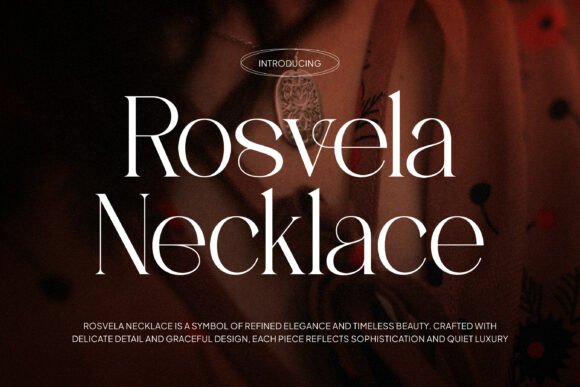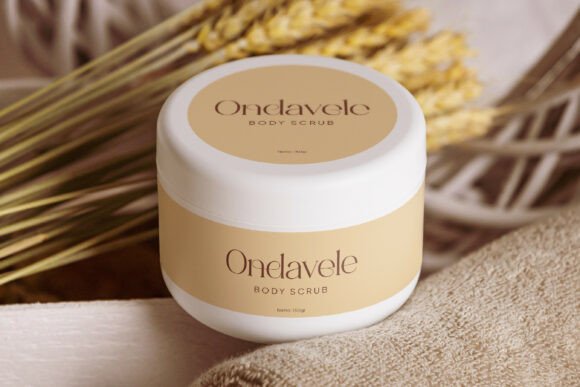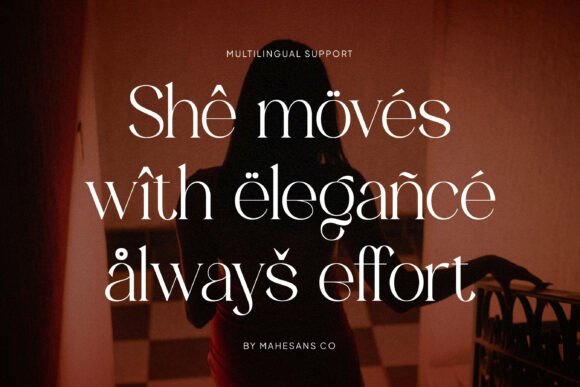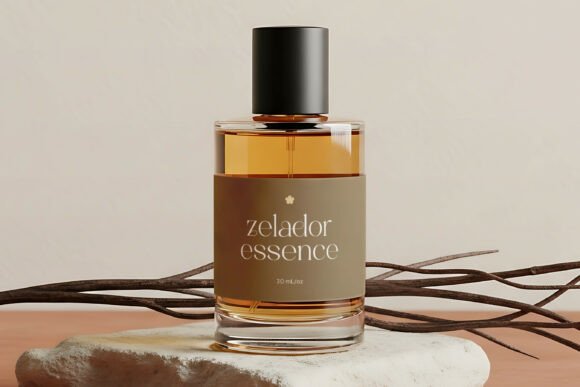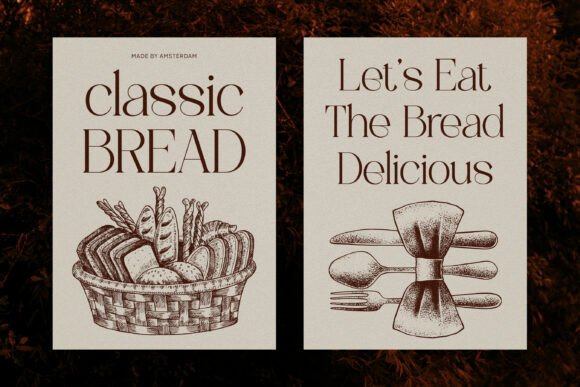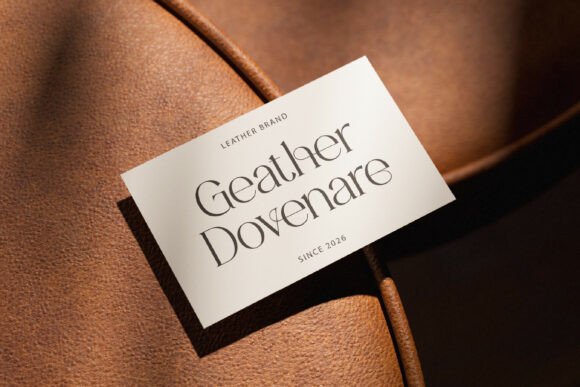
Introducing Belove Font: Elevate Your Designs with Modern Elegance
In the world of typography, a well-crafted font can make all the difference in elevating your designs from ordinary to extraordinary. Meet Belove Font, a modern elegant serif typeface designed to bring refinement and sophistication to your creative work. With its perfect balance of beauty and readability, Belove is the ideal choice for designers and crafters looking to add a touch of luxury to their projects.
The Art of Elegance: What Makes Belove Stand Out
Belove is more than just a font – it’s an experience. Carefully crafted to shine in luxury branding, editorial layouts, fashion campaigns, wedding designs, and premium packaging, this typeface is designed to bring a sense of charm, elegance, and modern sophistication to every composition. Whether you’re designing a brand identity, magazine headline, or elegant invitation, Belove is the perfect choice to make your work stand out.
Key Features of Belove Font
- Modern Elegant Serif Typeface: Belove boasts a sleek and sophisticated design, perfect for creating luxurious and high-end visuals.
- Balanced Beauty and Readability: The font’s careful craftsmanship ensures that it is not only visually stunning but also highly legible, making it perfect for a wide range of applications.
- Versatile: From branding and editorial design to fashion and packaging, Belove is the ultimate versatile font for any creative project.
Belove’s versatility makes it an excellent choice for a wide range of design projects. Here are just a few examples of where Belove can shine:
- Luxury Branding: Create a lasting impression with a sophisticated brand identity that exudes elegance and refinement.
- Editorial Layouts: Elevate your magazine or newspaper design with a font that commands attention and conveys sophistication.
- Fashion Campaigns: Bring high-end style to your fashion designs with a font that’s perfect for headlines, titles, and more.
- Wedding Designs: Add a touch of romance and elegance to your wedding invitations, programs, and other stationery.
- Premium Packaging: Make your product stand out on store shelves with a font that exudes luxury and sophistication.
Why Choose Belove Font?
With so many fonts available, why choose Belove? Here are just a few reasons why Belove stands out from the crowd:
- Unique and Memorable: Belove’s modern elegant design ensures that your work will stand out and be remembered.
- Highly Versatile: From digital to print, Belove performs beautifully in a wide range of applications.
- Easy to Read: Despite its elegant design, Belove remains highly legible, making it perfect for body text and headlines alike.
- Make a Lasting Impression: Whether you’re designing for luxury brands, fashion campaigns, or wedding designs, Belove helps you create a lasting impression.
In conclusion, Belove Font is the ultimate choice for designers and crafters looking to add a touch of modern elegance to their creative work. With its perfect balance of beauty, readability, and versatility, Belove is sure to elevate your designs and make them stand out in a crowded marketplace.